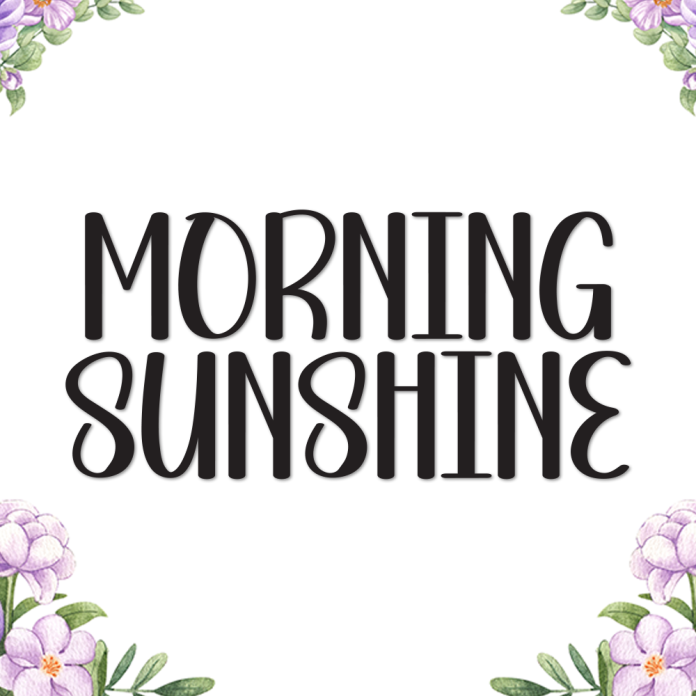
Morning Sunshine is a vibrant and uplifting display font that radiates positivity and warmth—just like a sunny morning. With bold curves and friendly letterforms, it’s designed to capture attention while keeping a playful and joyful tone.
Perfect for kids’ products, greeting cards, posters, branding, packaging, and seasonal promotions, Morning Sunshine brings a fresh and happy vibe to any creative project.
Bold, cheerful display style
Uppercase & lowercase letters
Numbers & punctuation